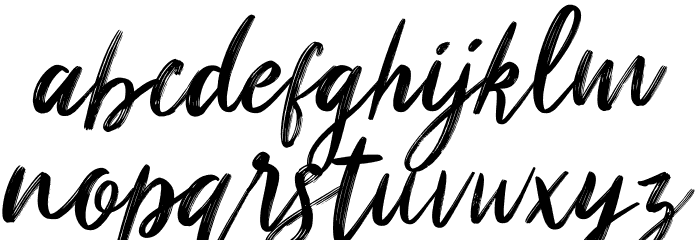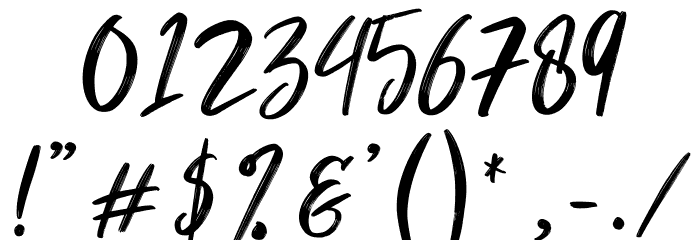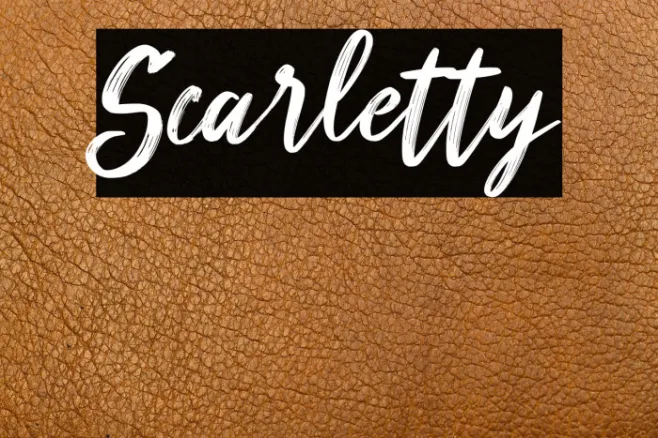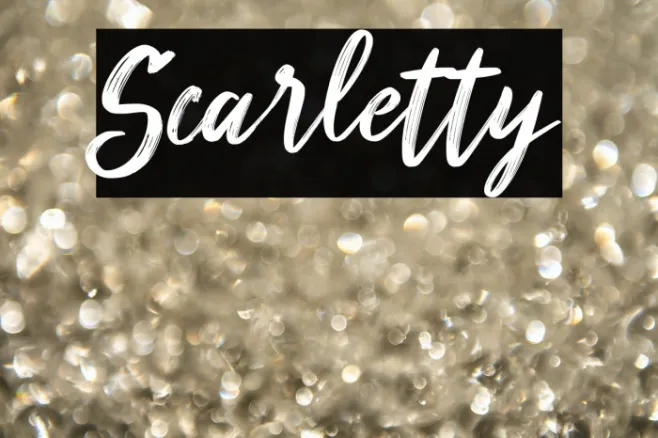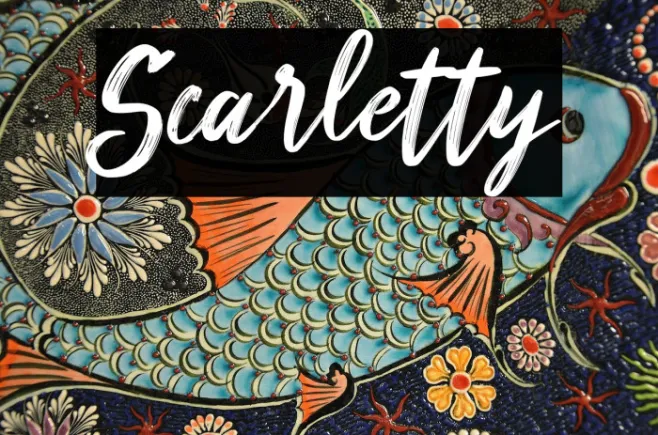
Scarletty Font
This font features a dynamic and expressive script style, characterized by its fluid and cursive strokes. The letters are interconnected with a natural flow, giving it a handwritten appearance. The strokes vary in thickness, adding a sense of movement and energy. The uppercase letters are bold and prominent, while the lowercase letters maintain a consistent style with elegant loops and curves. The numerals and special characters complement the overall design, maintaining the same energetic and artistic flair. This font is ideal for projects that require a personal touch or a creative, artistic vibe.
A dynamic, expressive script font with fluid, cursive strokes and varying thickness.
- Proposed Projects: Ideal for wedding invitations, greeting cards, branding, and artistic posters.
- Use Case: Logos, Headlines, Artistic projects